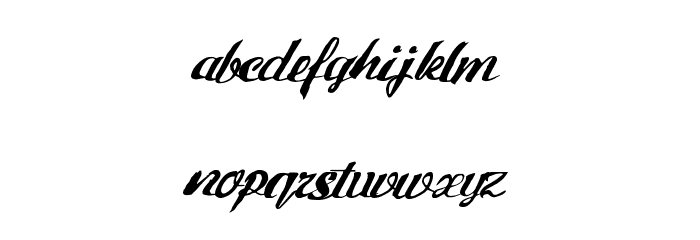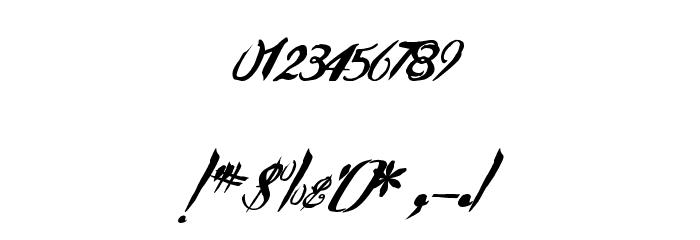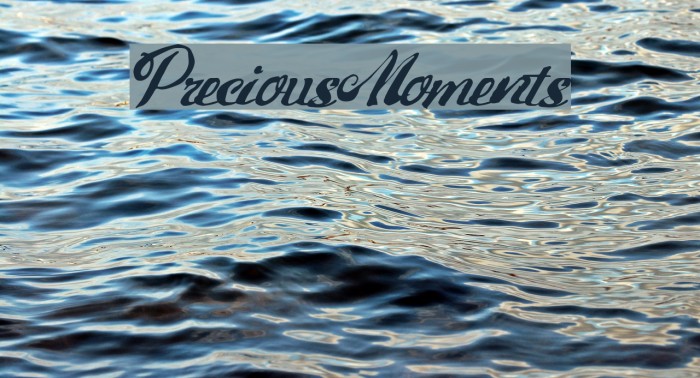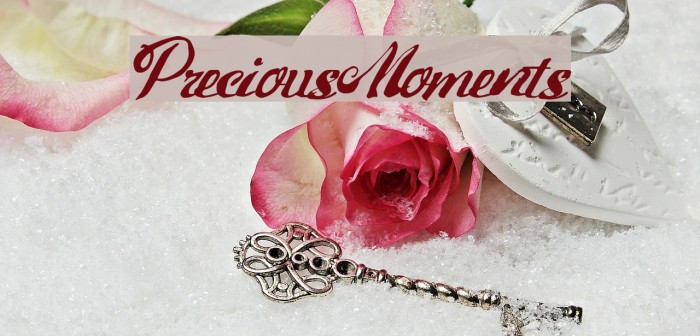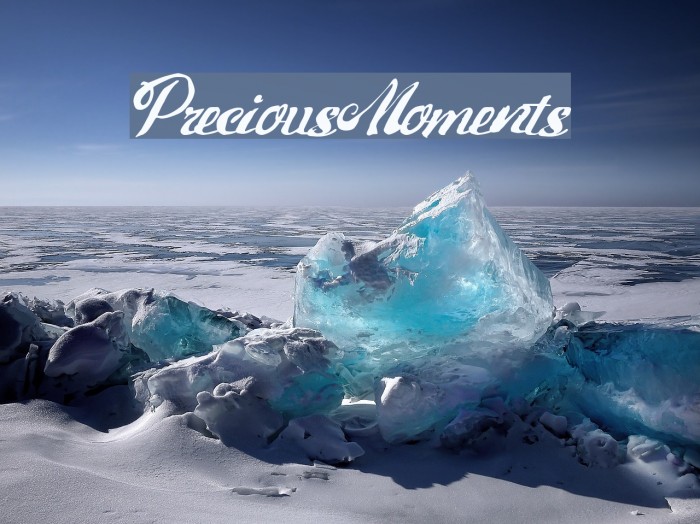
PreciousMoments Font
This font features an elegant and flowing script style, reminiscent of classic calligraphy. The characters are intricately designed with high contrast between thick and thin strokes, giving it a sophisticated and ornate appearance. The uppercase letters are particularly elaborate, with decorative flourishes that enhance their visual appeal. The lowercase letters maintain a consistent style, ensuring readability while preserving the font's artistic flair. Numbers and special characters are crafted with the same attention to detail, making this font versatile for various applications. Its overall aesthetic is both timeless and graceful, suitable for projects that require a touch of elegance.
An elegant, high-contrast script font with ornate, flowing characters.
- Proposed Projects: Ideal for wedding invitations, formal event programs, luxury branding, and elegant packaging designs.
- Category: Script
- Overall Style: Classic
- Use Case: Logos, Invitations, Decorative text